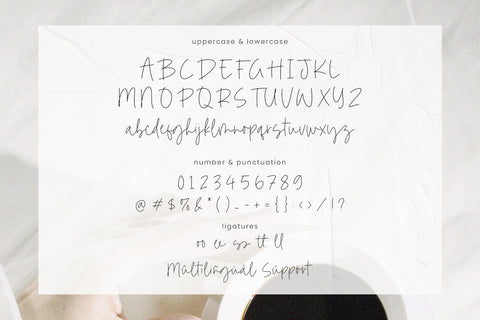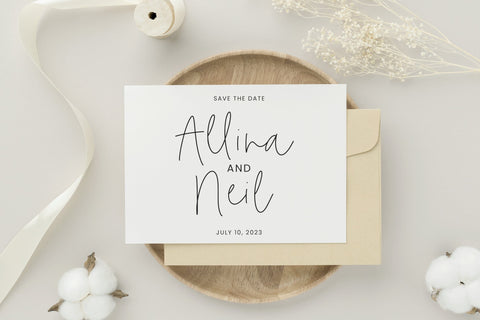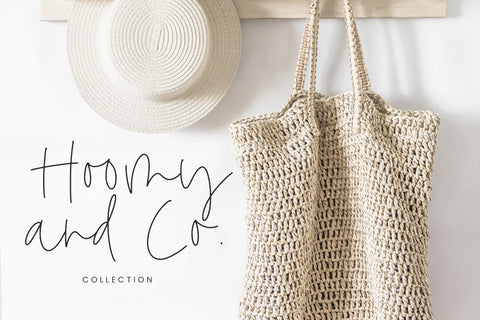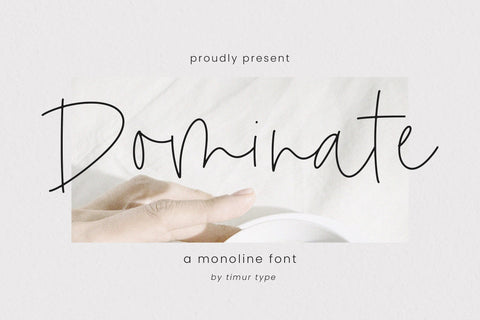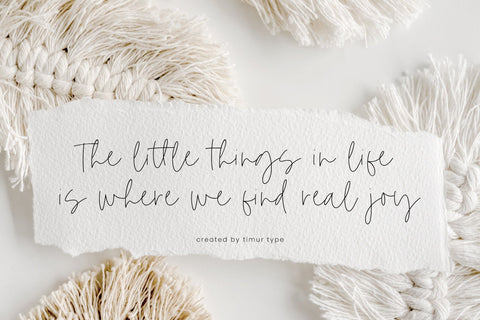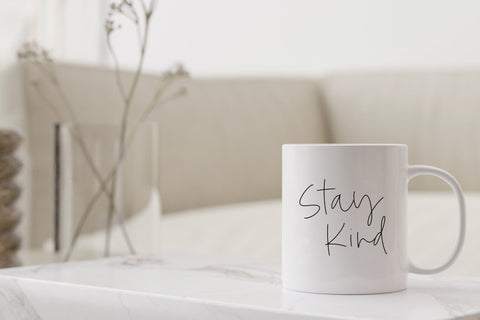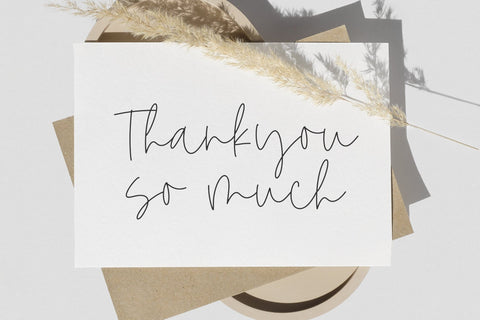
Dominate - Monoline font
Introducing by Timur type
Proudly Present, Dominate
Dominate A Handwritten Script Font , which was created with great care and specially created for you
Dominate is perfect for product packaging, branding project, megazine, social media, wedding, or just used to express words above the background.
– multilingual support.